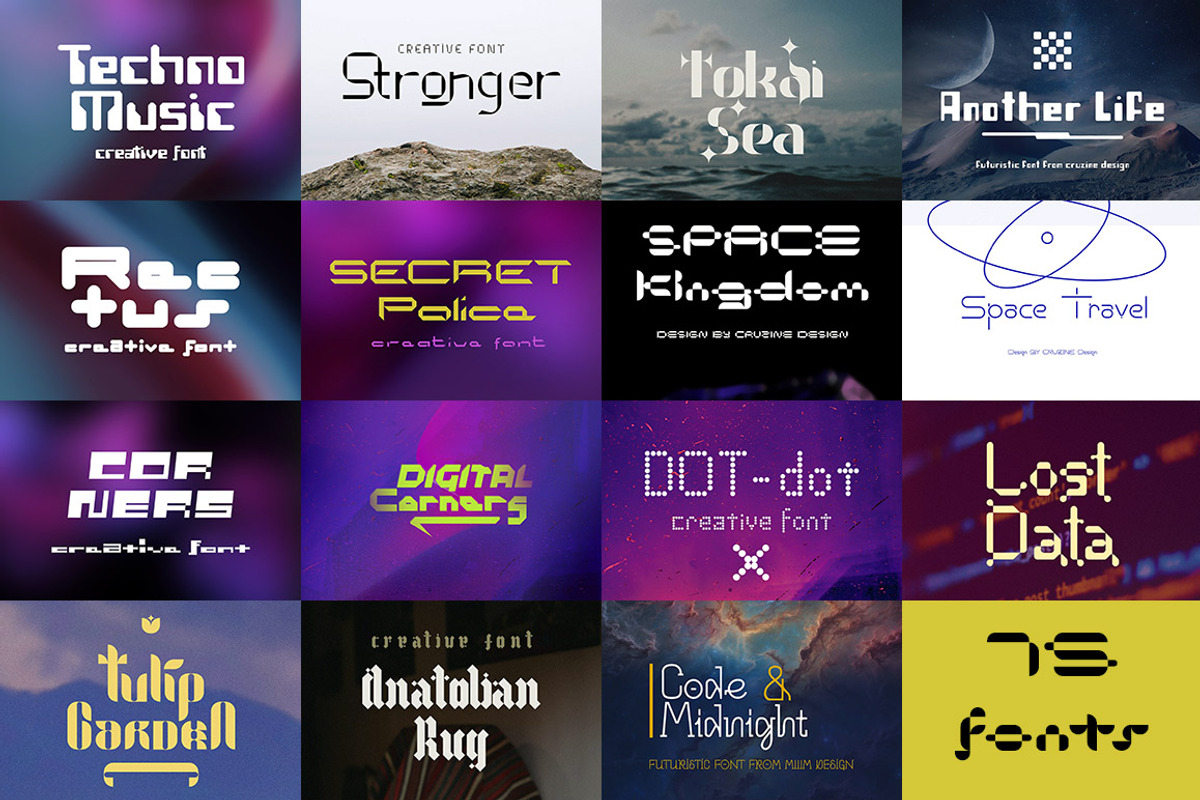
Geometric & Futuristic Fonts 2
Need something sharp & unique for your new typography or branding project? No problem at all 😉 You’ll find here 15 geometric & futuristic style display fonts! Great for your logos, headers, t-shirts or any other modern branding project. You can create futuristic or geometric headers or texts without much effort.